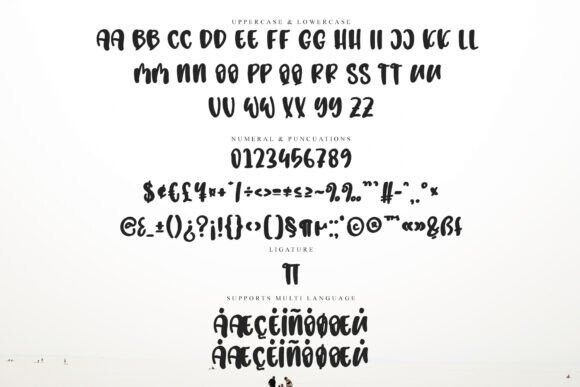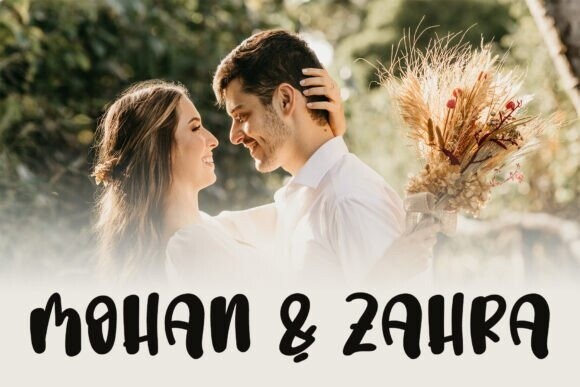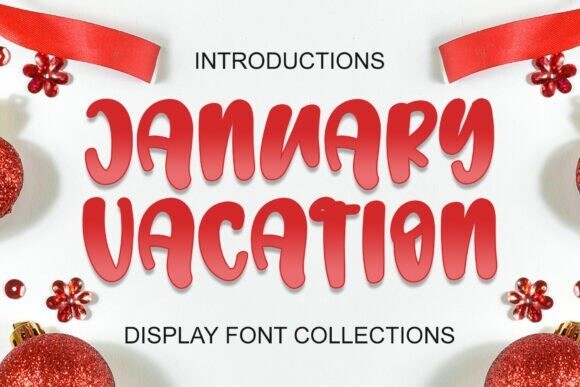
January Vacation Font
Designer: YanStudio
January Vacation Font is a cute and charming display font. Whimsical and a bit quirky, this font will brighten up each of your designs. Add it confidently to your projects, and you will love the results.